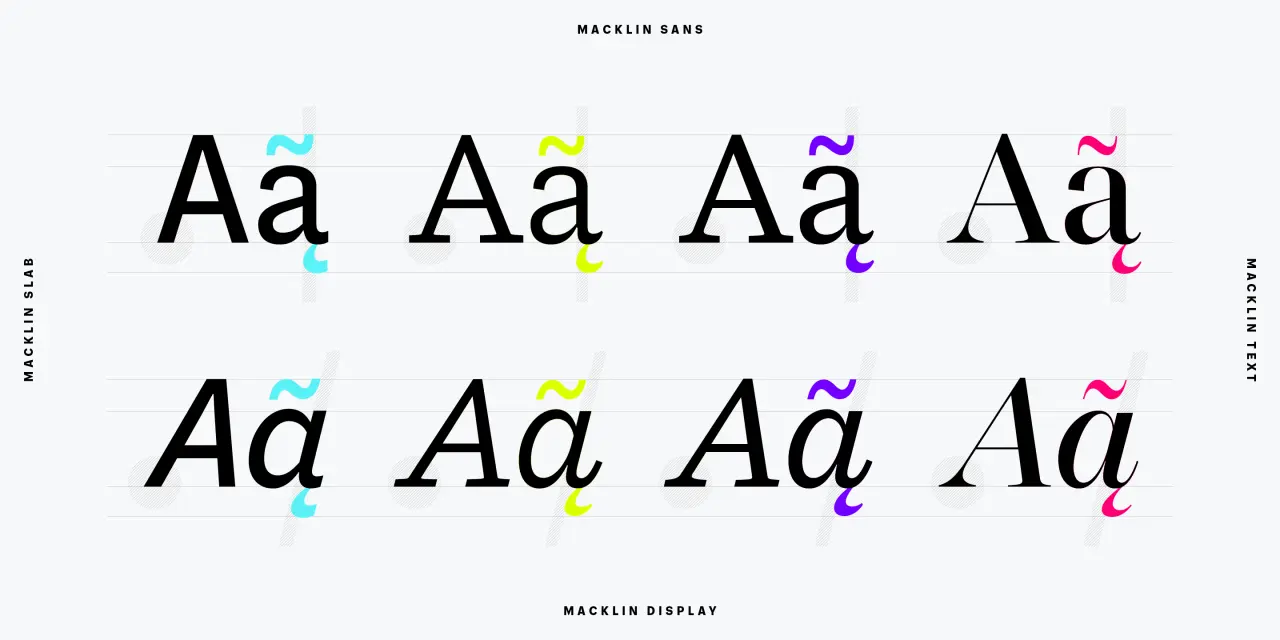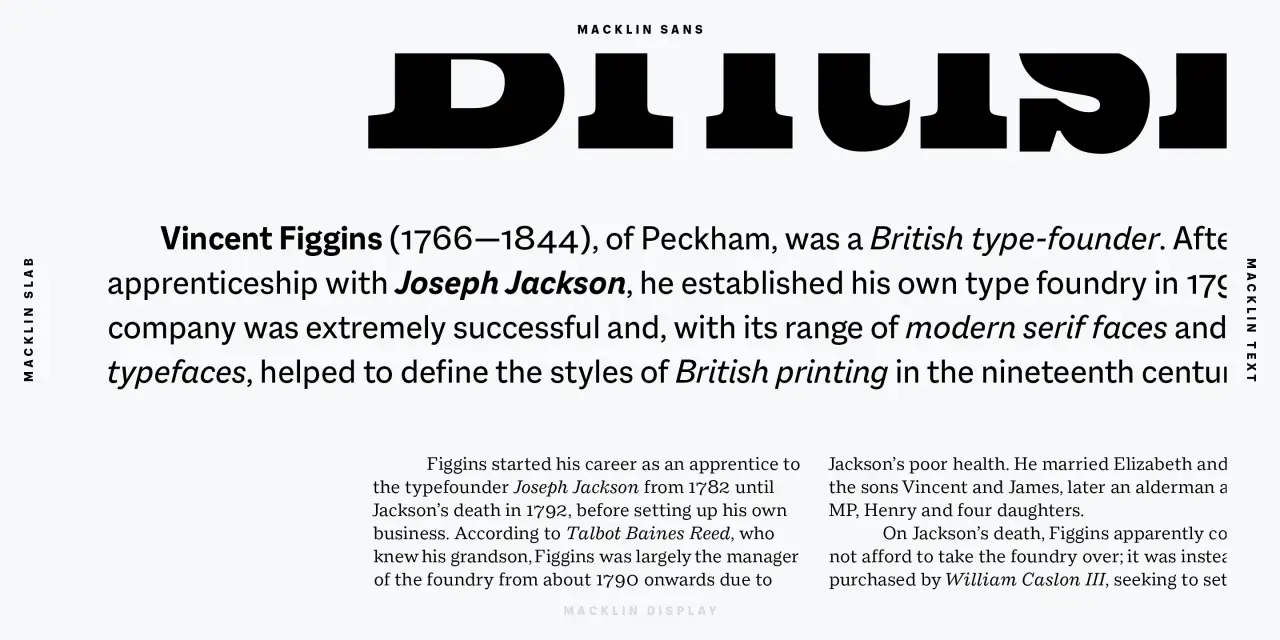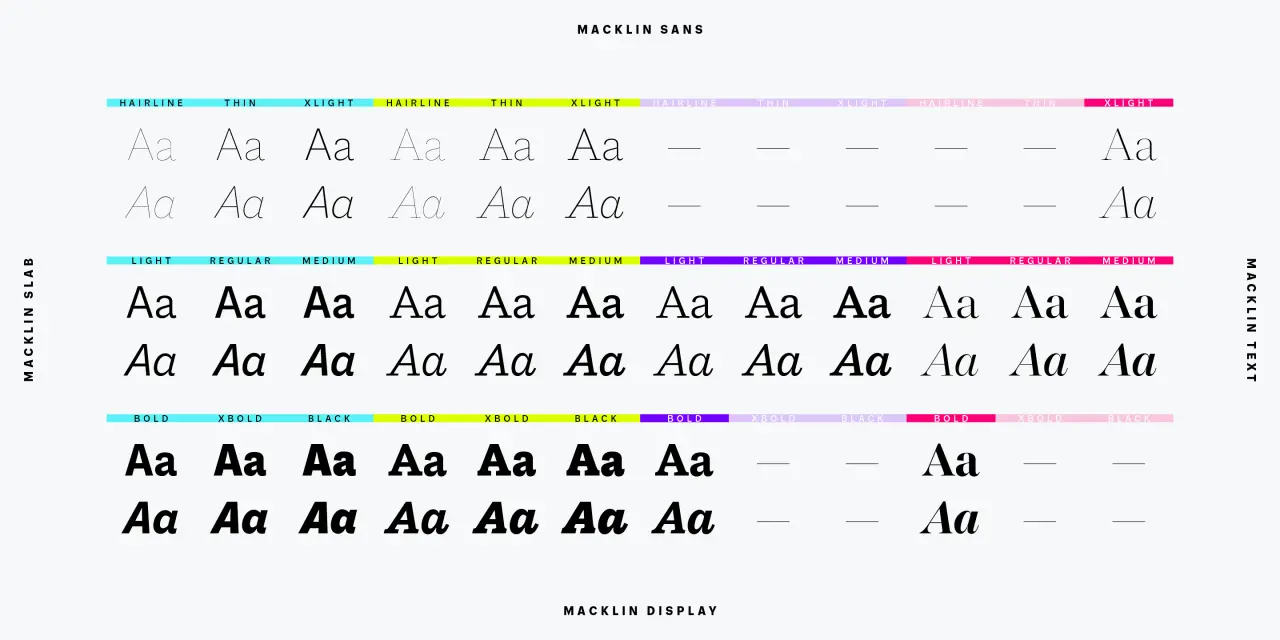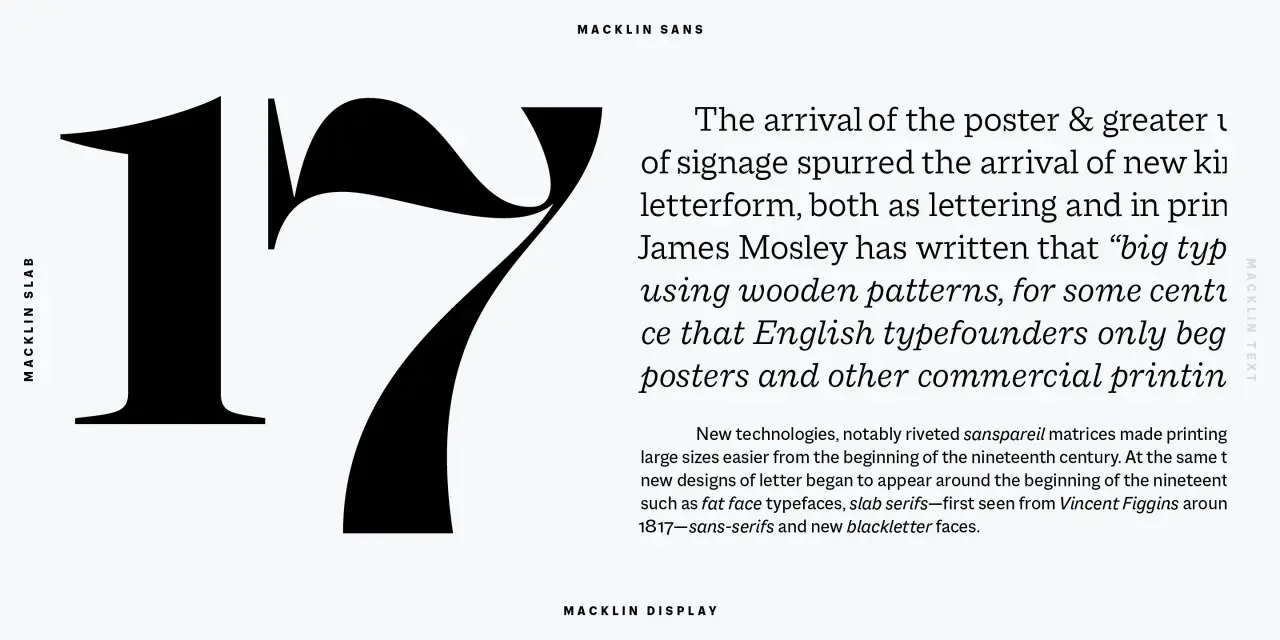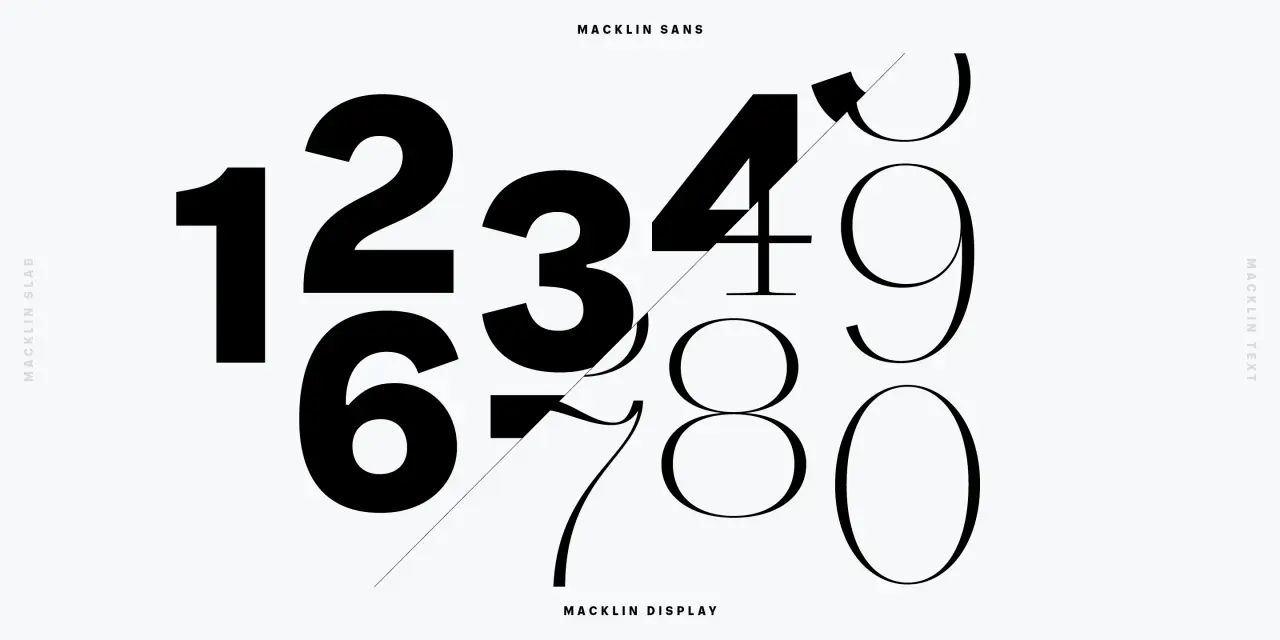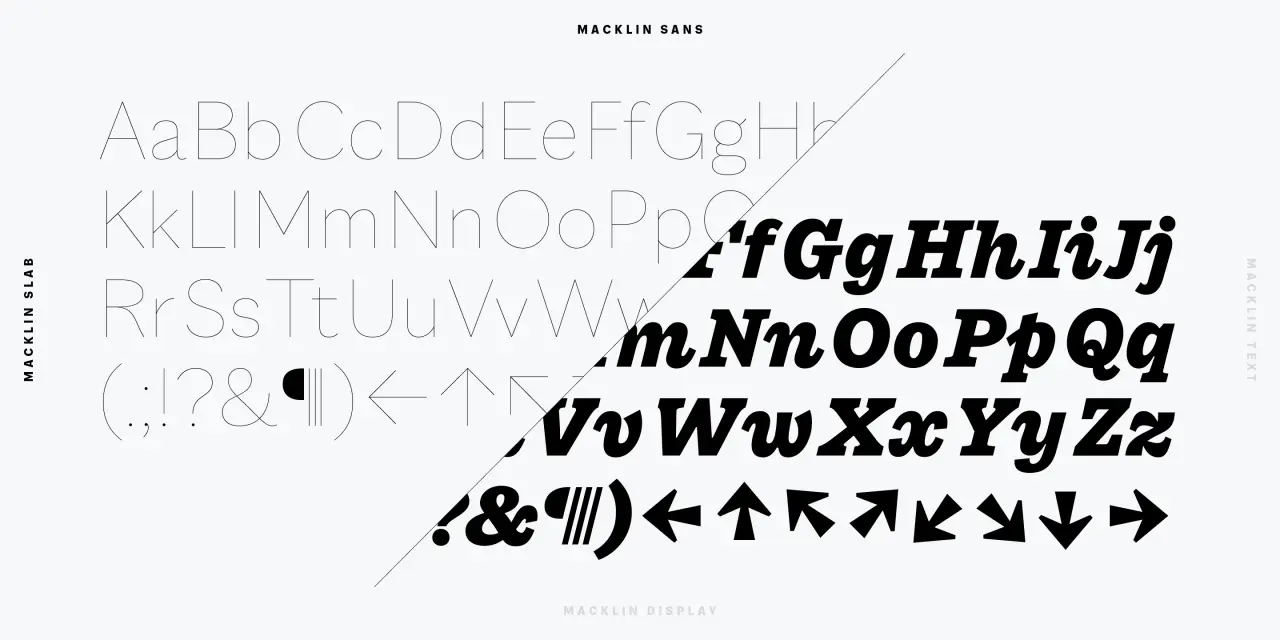
Macklin is a new typeface by Monotype inspired by British typographer Vincent Figgins
One of the most influential typographers of the 19th century, Vincent Figgins, has inspired a new typeface by Monotype, launched today.
Called Macklin, the superfamily is based on Figgins' entire body of work, transformed into a single, comprehensive type system. It has been designed by Monotype's Malou Verlomme to help brands "appeal more emotionally to modern consumers", as the foundry puts it.
Featuring four subfamilies – sans, slab, text, display – with weights from hairline to black, there's a total of 54 styles, each with a different tone of voice. "As a superfamily, Macklin is a very versatile typographic tool. It can perform well in many environments such as branding, editorial, packaging – it can also create interesting typographic contrasts while maintaining a level of consistency," says Malou.
"Macklin is not a historical typeface. In fact, I went through several stages of 'de-historicisation' during the design process," Malou adds. "While keeping the basic structure intact, all the historical details have been removed, even the iconic teardrop terminals. The result is a contemporary family that offers a large palette for branding and editorial needs. A sans for everyday use; a sturdy slab that stands out; a text for longer reading; and a display for large, crisp headings."
What details of Figgins' work did he find the most interesting? Malou believes his type specimens are "beautiful, groundbreaking art pieces" and that "other aspects of these little books are also very interesting, like the format, paper, layout, even the copy". He says there's a "peculiar sense of poetry that comes from these seemingly meaningless pieces of text".
James Fooks-Bale, Monotype's senior director and creative, adds: "Macklin captures that moment between the very straightforward printing faces and the boom of advertising and the industrial era. But it's not a revival or a classic. It's got the Malou twist on what modernity is now."